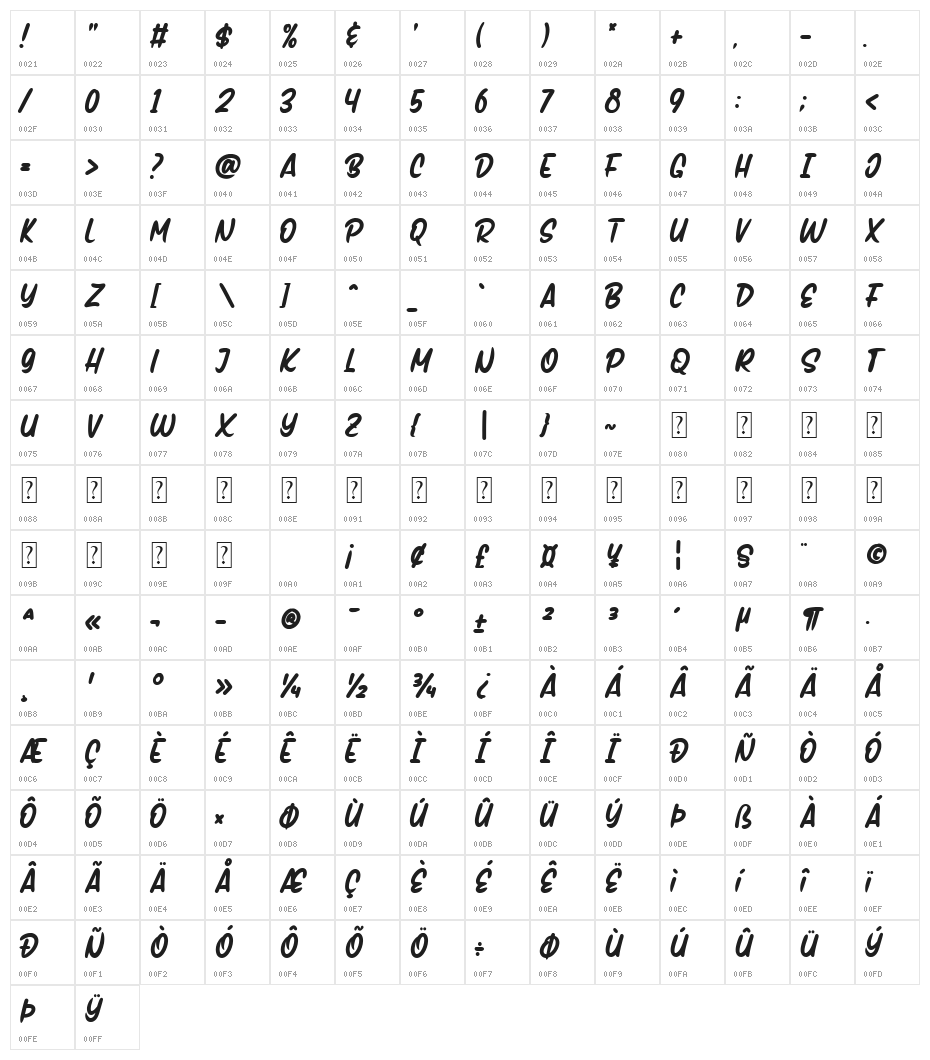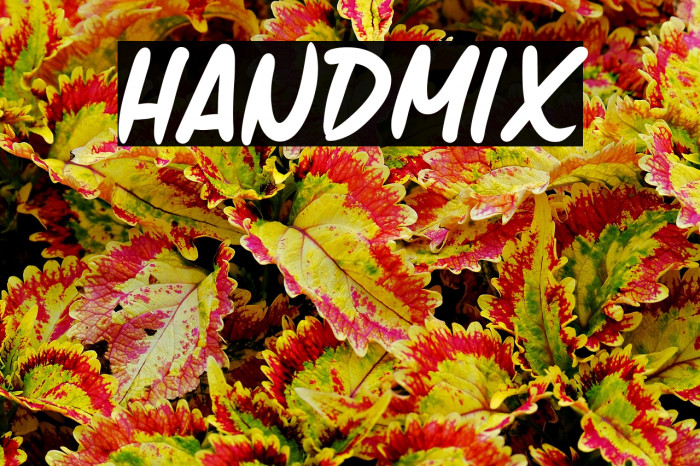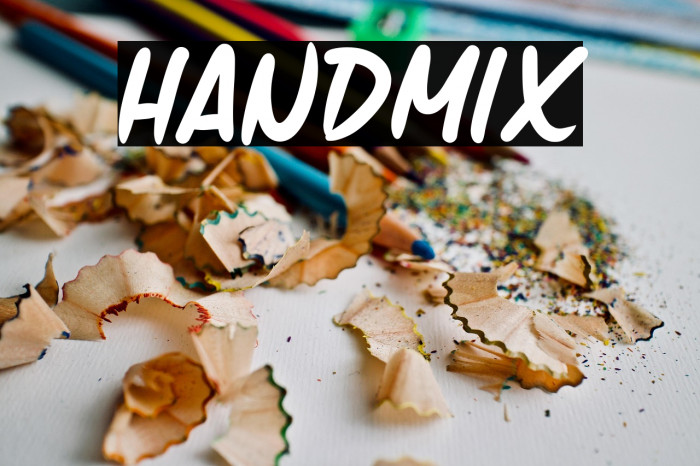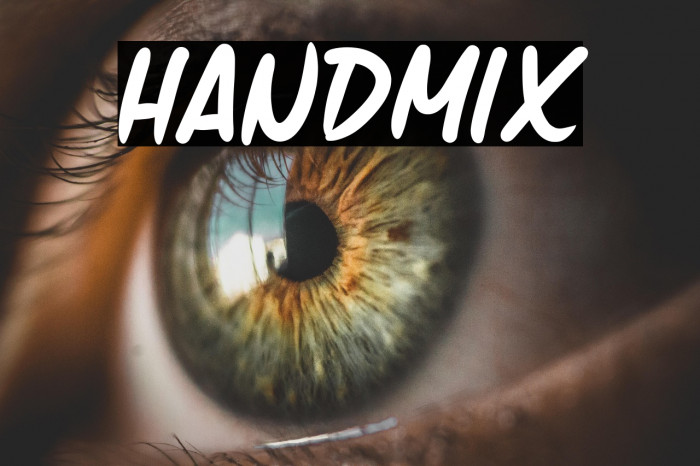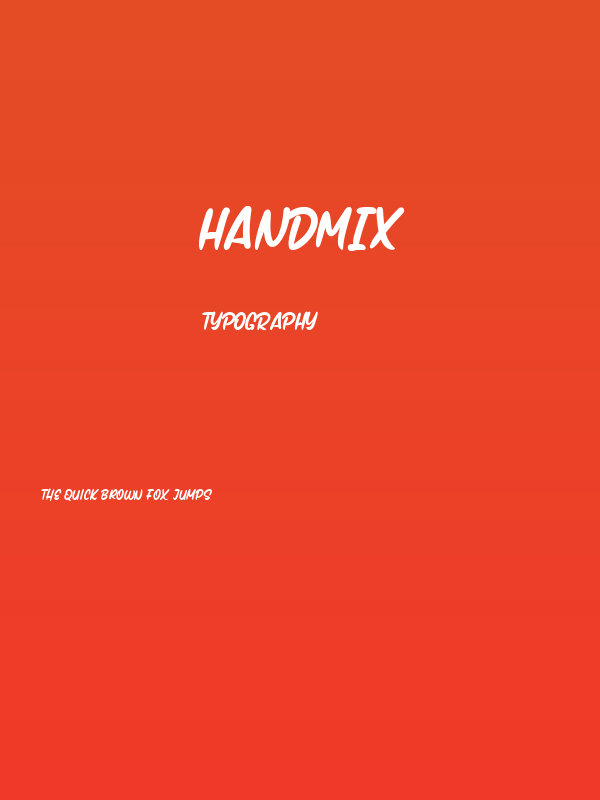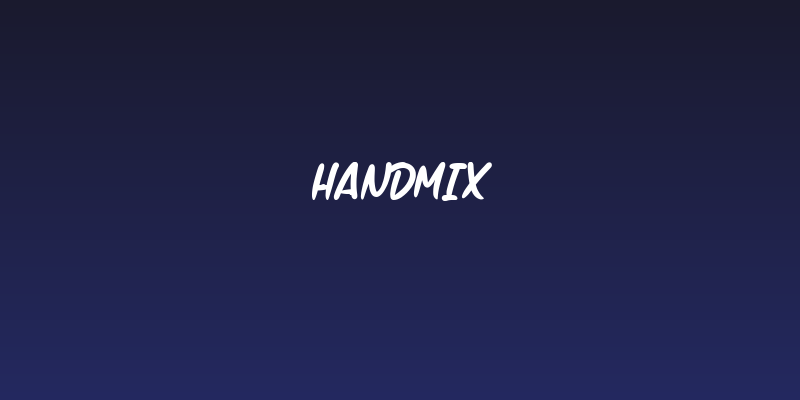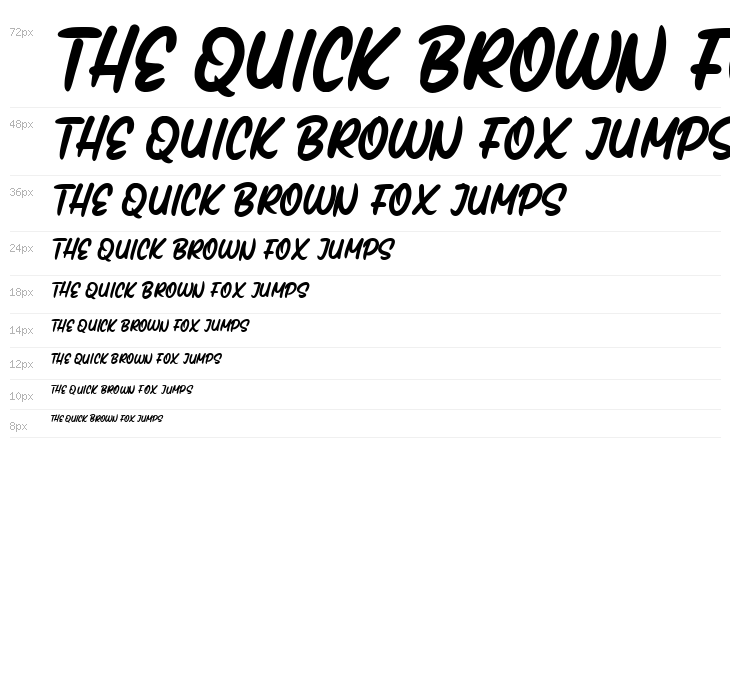
Handmix Font
Handmix Description
This font features a bold, handwritten style with a playful and energetic appearance. The letters are slightly slanted, giving it a dynamic and informal feel. The strokes are thick and consistent, providing a strong visual impact. The characters are closely spaced, enhancing the cohesive look of the text. This font is versatile, suitable for a variety of creative projects where a personal touch is desired. The numbers and special characters maintain the same lively style, ensuring uniformity across different types of content.
| Proposed Projects | Ideal for greeting cards, posters, branding, social media graphics, and any project requiring a personal, informal touch. |